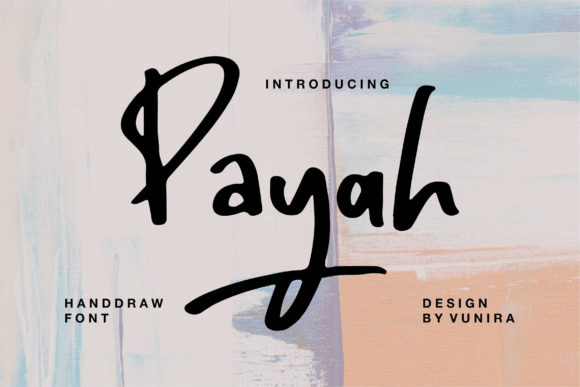
Payah Font
Prepare yourself for an enchanting journey into the captivating world of typography, where the Payah font awaits your creative embrace. This exquisite script font, gracefully crafted by the renowned Vunira, is poised to adorn your digital creations with unparalleled elegance and allure.
Each letter within the Payah font family is a testament to the artistry and passion of its creator. Its delicate curves and graceful flourishes evoke a sense of timeless sophistication that will elevate your designs to new heights of beauty and refinement.
Whether you seek to craft heartfelt wedding invitations that evoke a profound emotional resonance or compose alluring thank-you cards that express your gratitude with a flourish, Payah stands as your indispensable companion. Its enchanting presence will lend an air of charm and distinction to every word you compose.
Unleash your creativity and explore the boundless possibilities that await you with the Payah font. Transform ordinary quotes into captivating works of art, and elevate your greeting cards to cherished keepsakes that convey your heartfelt sentiments. Allow Payah to grace your logos with an inimitable touch of class, and lend your business cards an aura of professionalism that commands attention.
Every stroke of the Payah font exudes a captivating charm that will leave an unforgettable impression on your audience. Its versatility knows no bounds, adapting seamlessly to a multitude of design aesthetics, from the whimsical to the formally elegant.
So, dear creative spirit, embark on this extraordinary adventure with Payah, where the power of words and the allure of exquisite typography converge to weave a tapestry of beauty and enchantment. Let your imagination soar, and allow Payah to guide you toward the creation of masterpieces that will endure the test of time.